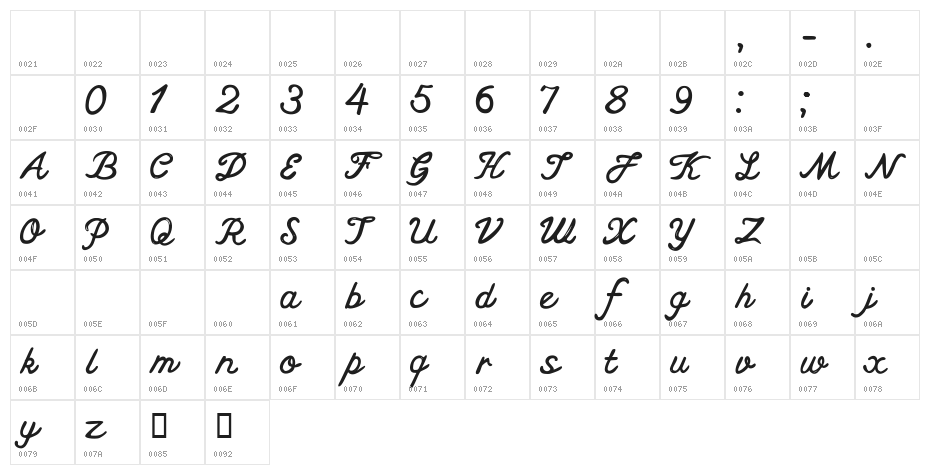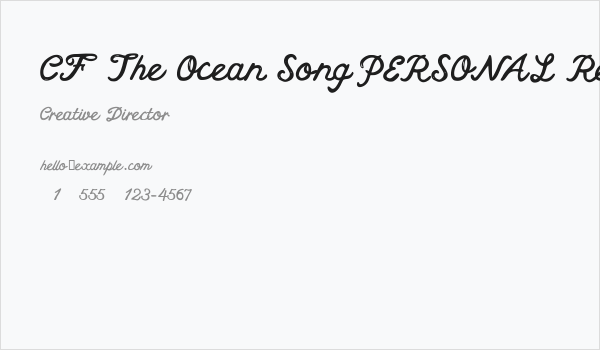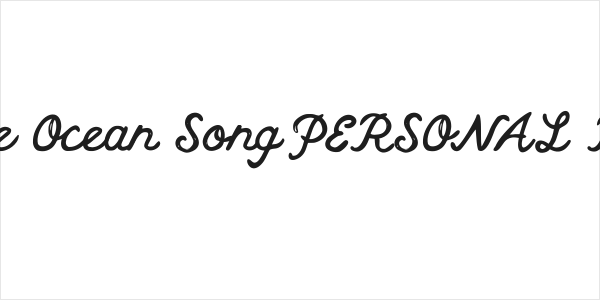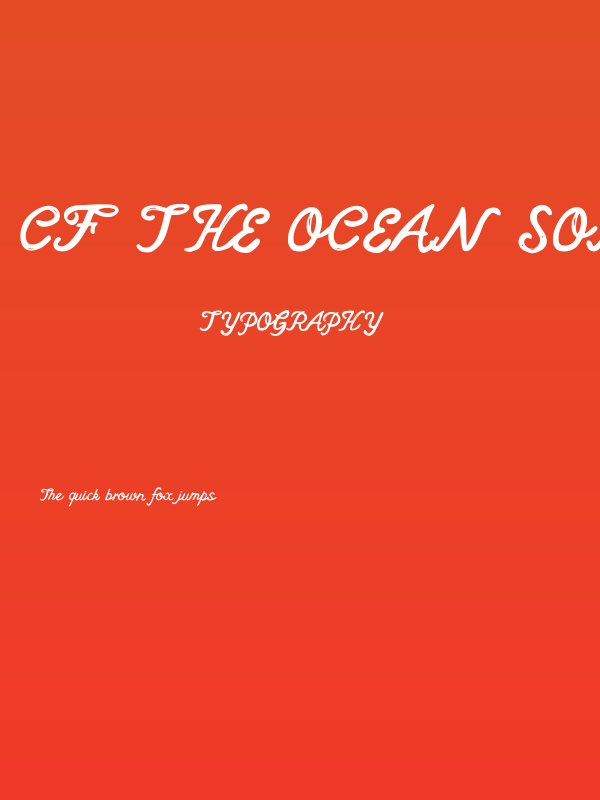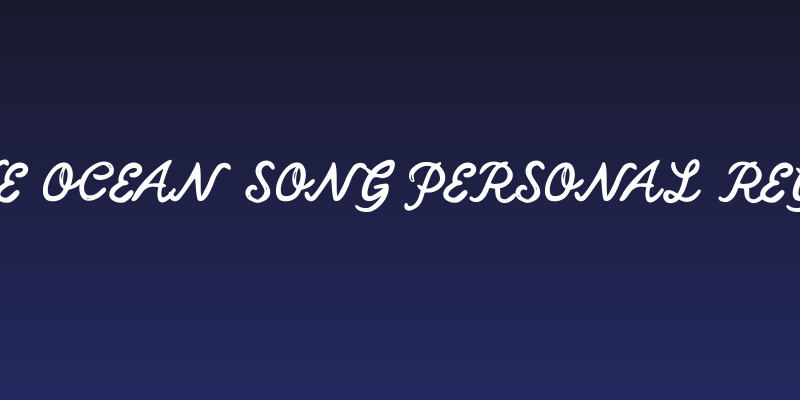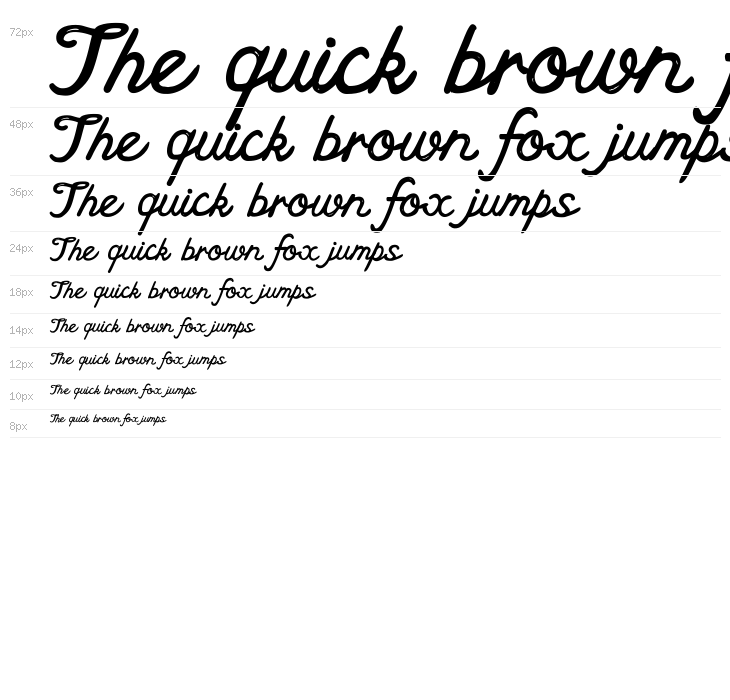
CF The Ocean Song PERSONAL Regular Font
CF The Ocean Song PERSONAL Regular Description
This font exudes a flowing, cursive style that mimics the elegance of handwritten script. The characters are interconnected, creating a seamless and fluid appearance. The uppercase letters maintain a consistent height, while the lowercase letters feature gentle loops and curves, enhancing the overall graceful aesthetic. The numerals are bold and clear, ensuring readability. The special characters blend harmoniously with the rest of the font, maintaining the same cursive flair. This font is ideal for projects that require a personal touch, such as invitations, greeting cards, or branding materials that aim to convey sophistication and elegance.
| Proposed Projects | Ideal for invitations, greeting cards, and elegant branding materials. |